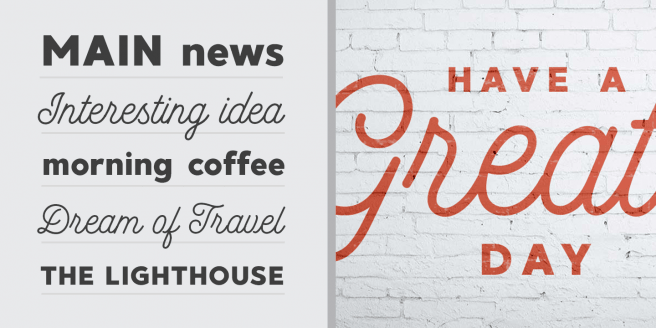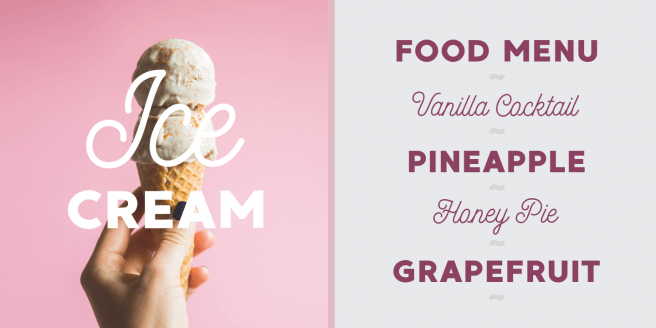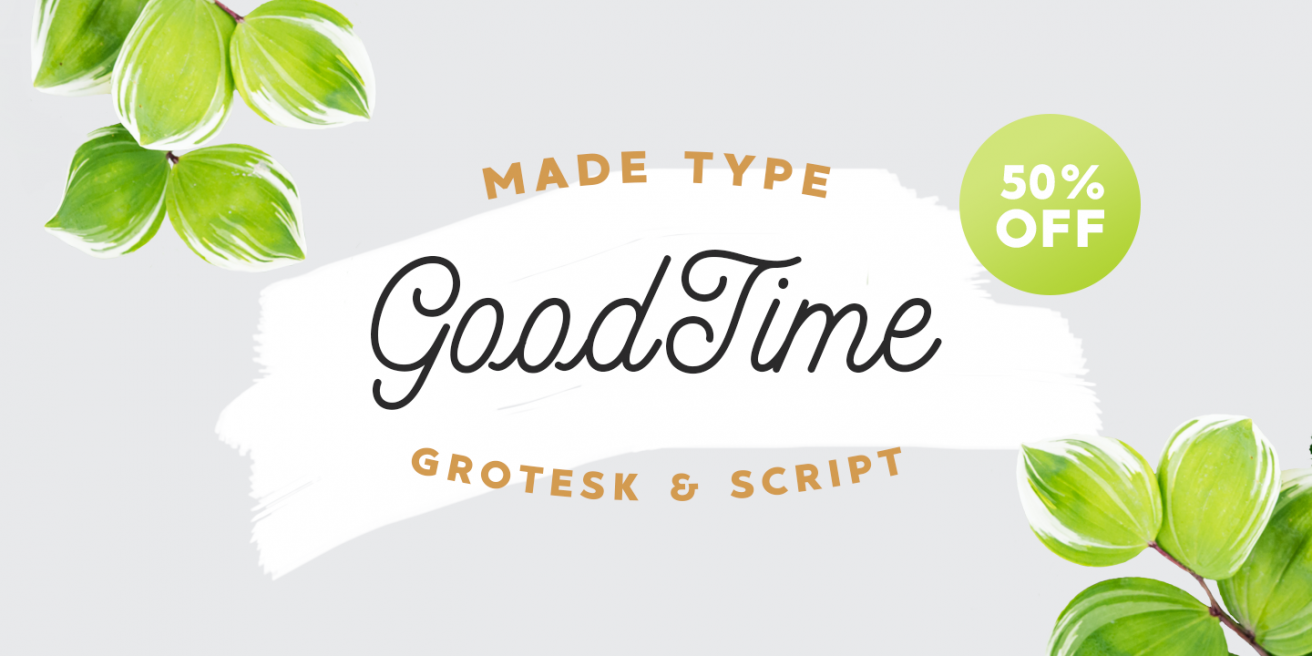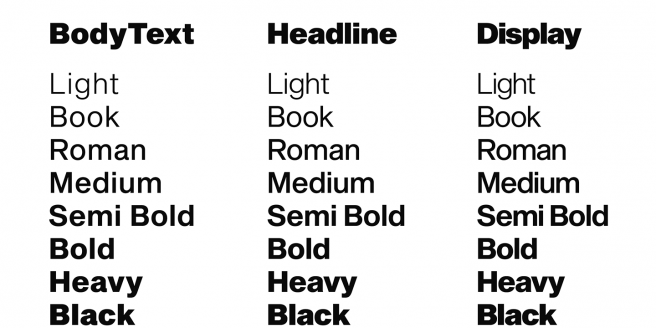
It’s summer, and that means your favorite blockbusters are getting sequels. Unlike movie sequels though, there’s nothing disappointing about Sequel Sans. Made as an homage to Max Bill, the influential mid-century Swiss architect, artist and designer, this typeface will resonate strongly in modernist projects, or anywhere else clean lines are a necessity. |
We love our big expansive multi-style families here at Fontspring, but we also love small families that find something unique and capitalize on it. Goodtime is a font of just two styles, a simple script and a blocky display sans. Use them together for contrast, or alone for legible display goodness. Sometimes you just need something different to get you out of a design rut, and for $12, this is a great way to do it. |
Who would have thought that the inappropriate use of a single typeface could be the downfall of a corrupt government leader? Discover how and why the fate of Pakistan’s Prime Minister Nawaz Sharif pivoted around the official release date of Calibri’s commercial font license in this tale of corruption, forgery, and anachronism.
In this Type Thursday interview, Ulrik Hogrebe talks to designer Bethany Heck about her upcoming web project, The Font Review Journal. Bethany encourages designers to not be so afraid of unique font choices and shares some helpful advice on building beautiful type pairings.
If you grew up collecting rock albums and marveling at cover art, you’ll definitely enjoy this quiz on which letterforms belong to which classic rock bands. These music legends have not only kept their music in our heads, but also their branding. NME’s online quiz was inspired by the latest poster from Dorothy called Alphabet of Rock. Test your font rock knowledge from ACDC to Zappa.